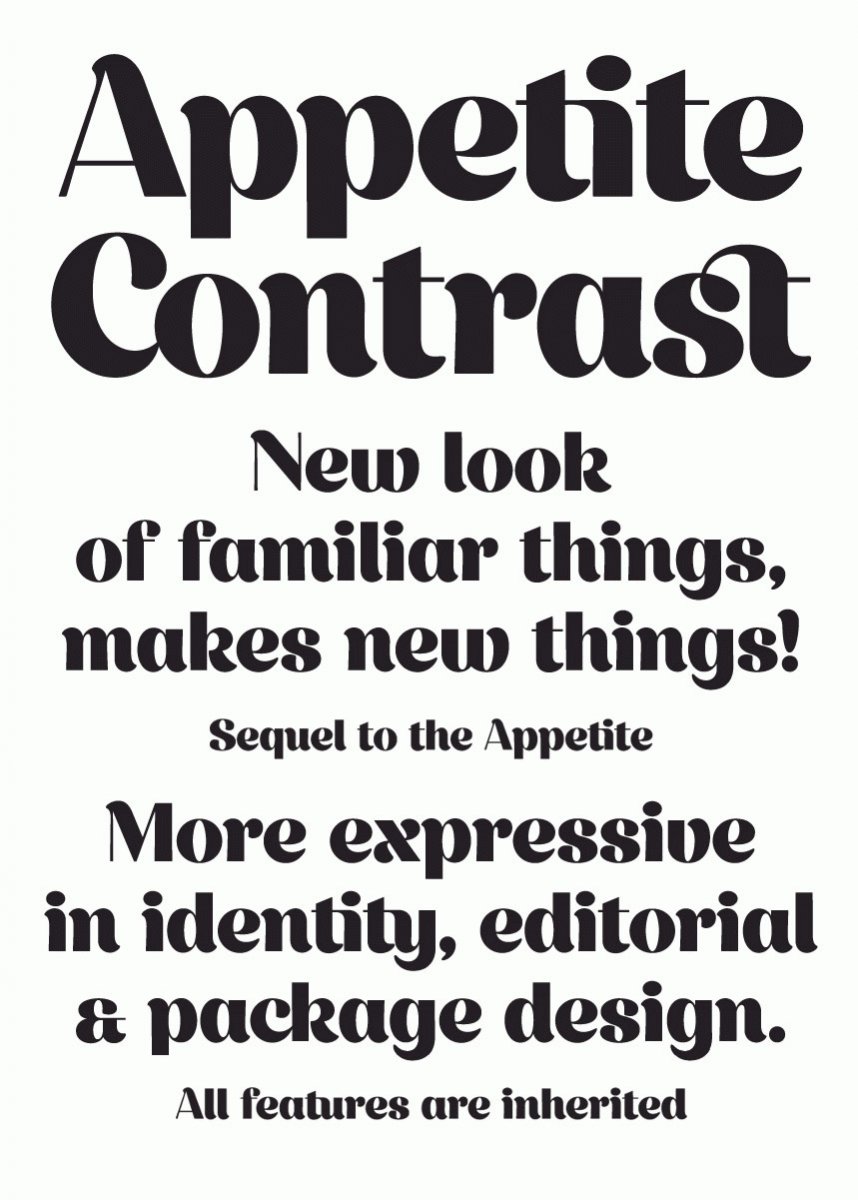
Appetite Contrast is a sequel to the Appetite font. All features are inherited in it. Appetite Contrast is a bold sans font with a lot of sweet ligature glyphs. Specially designed for logotype, packaging & editorial design projects.